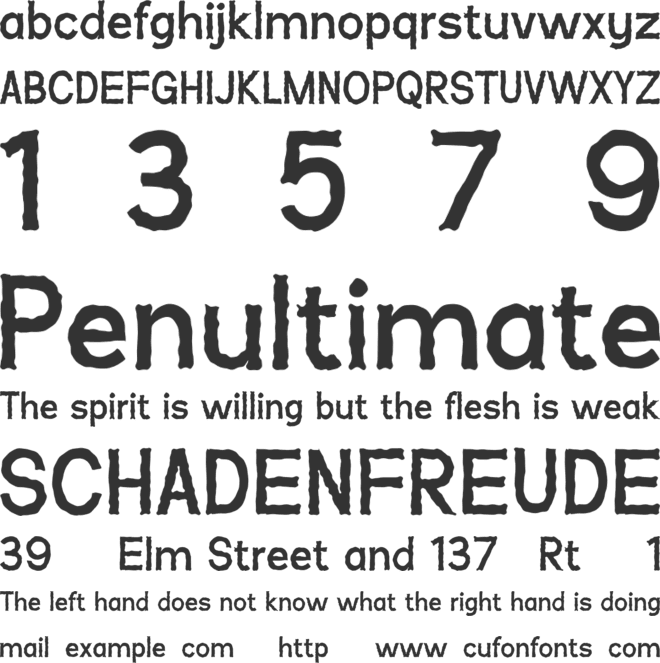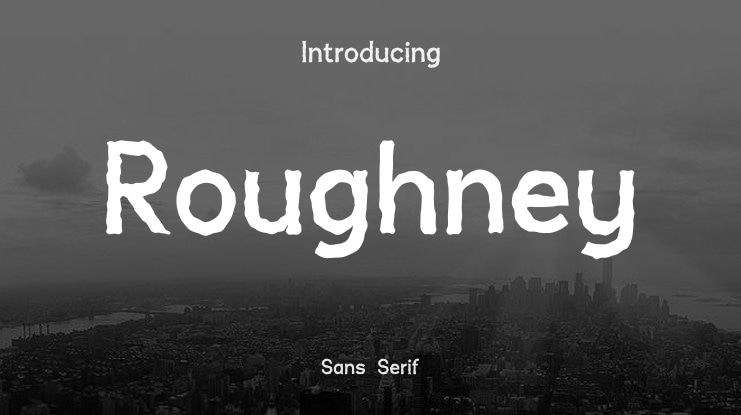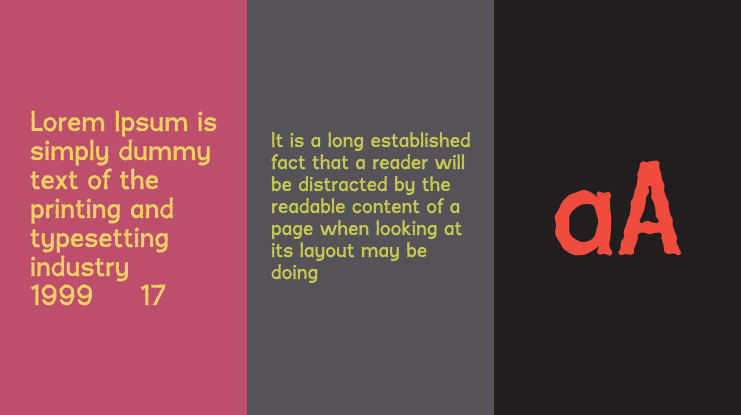
Roughney Font
Roughney is a bold rough sans serif font designed to bring a raw, rugged, and expressive character to your designs. With 6 versatile styles — Regular, Regular Slant, Bold, Bold Slant, Extra Bold, and Extra Bold Slant — Roughney gives you plenty of options for creating strong headlines, logos, posters, branding, packaging, apparel designs, and eye-catching display typography.
Its textured rough appearance adds a handmade and energetic feel while maintaining the clean structure of a sans serif typeface. Roughney is a great choice for retro designs, streetwear branding, posters, badges, labels, merchandise, and bold graphic projects.
Styles Included:
- Regular.
- Regular Slant.
- Bold.
- Bold Slant.
- Extra Bold.
- Extra Bold Slant.